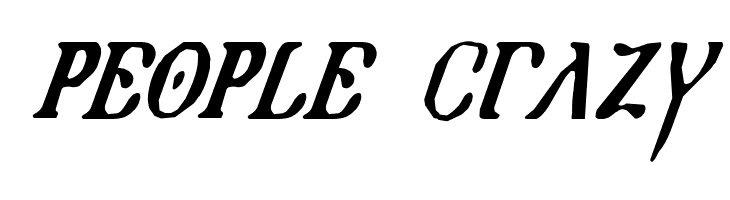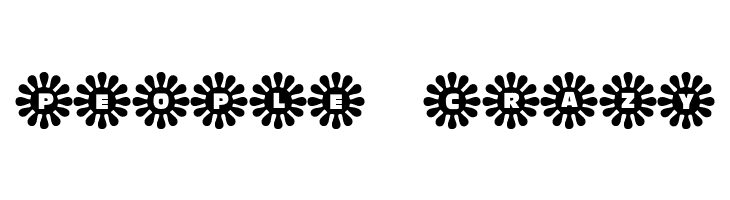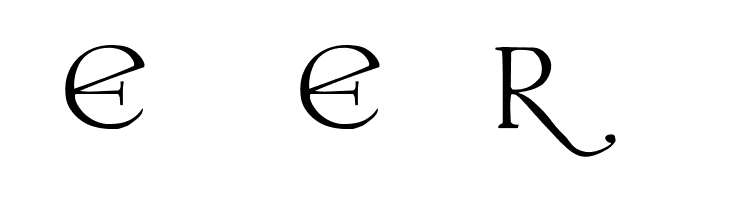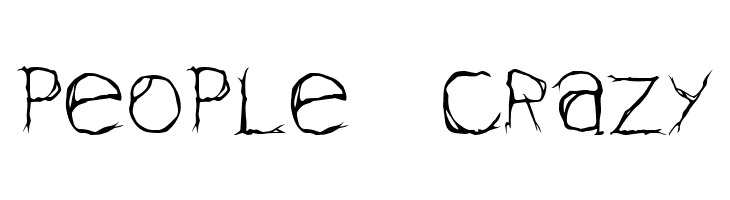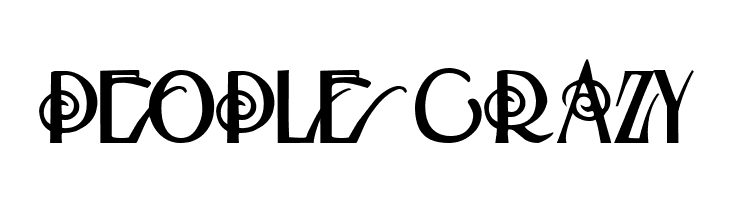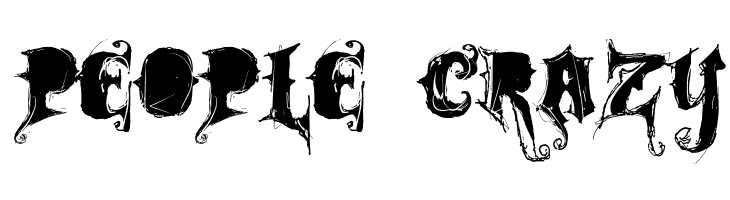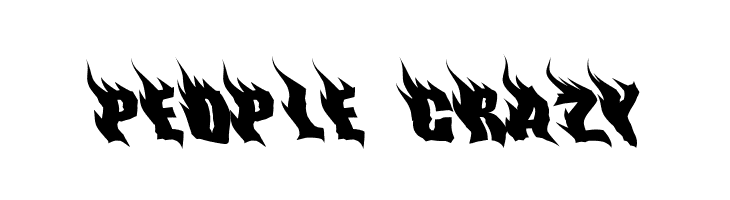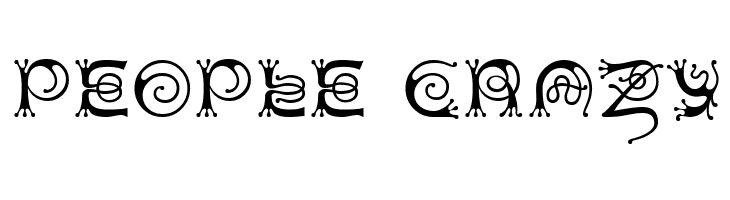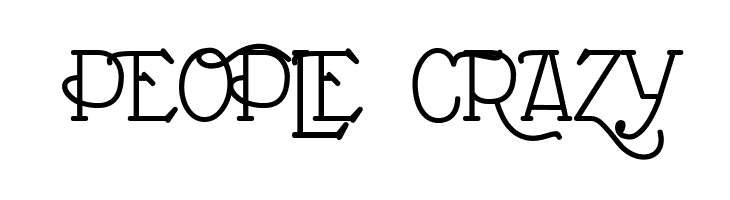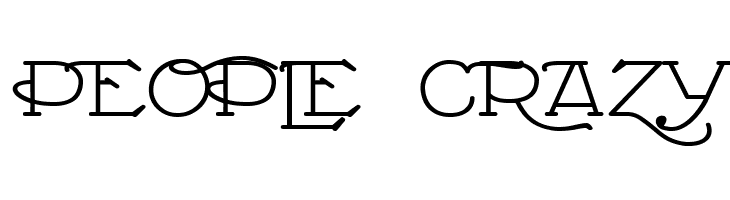
A decorative and whimsical font with intricate flourishes and playful extensions.
A decorative font with swirling, flame-like extensions and dynamic strokes.
A bold, flame-inspired font with dramatic, fiery extensions.
A bold, condensed, and italicized font with high contrast and angular strokes.
An edgy, thorn-like font with jagged, organic letterforms and bold, rectangular numbers.
A bold, thorny font with sharp, jagged edges for a striking and aggressive look.
An edgy, claw-inspired font with sharp, dramatic detailing.
An edgy, thorn-inspired font with a bold and dramatic style.
A bold, thorny font with sharp, angular lines and a striking appearance.
An elegant and decorative font with intricate swirls and flowing letterforms.
A bold, grunge-inspired decorative font with intricate details and a rock aesthetic.
A bold, flame-inspired decorative font with sharp, dynamic characters.
A whimsical and artistic font with decorative loops and swirls.
A decorative font with whimsical and artistic elements, featuring loops and swirls.
A dynamic, edgy font with sharp, angular strokes and a futuristic aesthetic.
A bold, dynamic font with angular edges and a dramatic slant.
A bold, thorny decorative font with sharp, intricate details.
An ornate and decorative font with intricate flourishes and whimsical character shapes.
An ornate and elegant script font with elaborate swirls and flourishes.